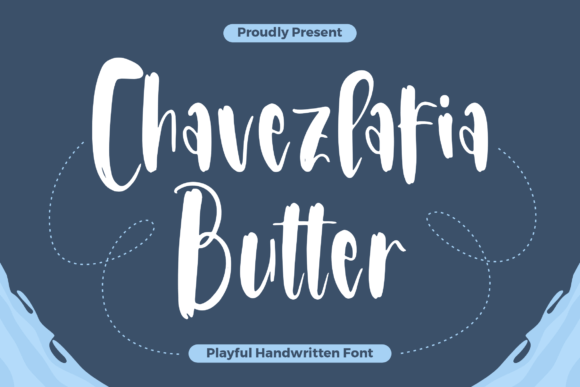
As designers, we’ve all been there – staring at a blank canvas, trying to bring a concept to life. The blank page can be intimidating, but it’s in these moments of creative uncertainty that we often stumble upon something truly special. For Glorytype Studio, that moment led to the creation of the Chavezlafia Butter Font, a playful handwritten font designed to add a touch of whimsy to any project.
This versatile font is perfect for designers looking to inject a sense of personality into their work. Whether you’re crafting a logo, branding project, or product packaging, Chavezlafia Butter Font is sure to bring a beautiful script taste to your designs. Its value lies in its adaptability, making it a valuable addition to any designer’s toolkit – and a must-have for anyone looking to add a little extra flair to their projects.
Chavezlafia Butter Font Key Features
- Font Family: Chavezlafia Butter Font, a unique, hand-drawn font with a buttery texture and a touch of elegance.
- Unique Characteristics: The Chavezlafia Butter Font features a distinctive, hand-drawn style with a buttery texture, adding a touch of warmth and personality to any design project.
Chavezlafia Butter Font Review
Overall, I think Chavezlafia Butter Font has some great qualities that make it stand out, but it also has some areas where it falls short.
- Unique aesthetic: The font’s combination of soft, rounded edges and a hint of vintage charm makes it perfect for designs that need a touch of whimsy.
- Legibility: Despite its playful appearance, Chavezlafia Butter Font is surprisingly easy to read, even at smaller font sizes.
- Customization options: The font comes with a range of weights and styles, allowing designers to tailor their design to suit their needs.
- Limited language support: Chavezlafia Butter Font only includes a limited set of languages, which may limit its use in global design projects.
- Not suitable for body text: While the font is great for headlines and titles, it may not be the best choice for large blocks of body text, where readability is crucial.
- May not be suitable for small-scale designs: The font’s size and complexity may make it difficult to use in small-scale designs, such as social media graphics or mobile apps.
Overall, Chavezlafia Butter Font is a great choice for designers who want to add a touch of personality to their designs. While it has some limitations, its unique aesthetic and customization options make it a valuable addition to any designer’s toolkit.
Tips for Getting the Most Out of Chavezlafia Butter Font
For best results, use Chavezlafia Butter Font in titles and headings to add a touch of elegance and sophistication. You can also use it to create a unique and eye-catching visual identity for your brand.
Experiment with different font sizes, colors, and combinations to find the perfect balance for your design.
Alternatives to Chavezlafia Butter Font
Playfair Display is a luxurious, high-end serif font suitable for use in upscale branding, invitations, and magazine headlines. Its elegant and refined design makes it perfect for creating a sense of sophistication and glamour. Compared to Chavezlafia Butter Font, Playfair Display has a more formal and traditional feel, with a greater emphasis on elegance and refinement.
Great Vibes is a modern, elegant script font ideal for use in creative branding, packaging, and advertising. Its fluid, cursive design makes it perfect for adding a touch of whimsy and personality to your designs. Compared to Chavezlafia Butter Font, Great Vibes has a more playful and informal feel, with a greater emphasis on creativity and self-expression.